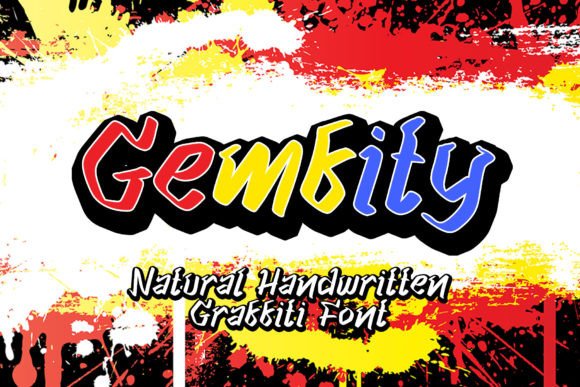
Welcome to the world of Gemfity Font, the script font family that will bring a touch of playful graffiti art into your creative conceptions. With its energetic strokes and vibrant personality, Gemfity is the perfect font for designers and artists seeking to create projects that pop.
At the core of Gemfity lies a spirit of youthful energy and artistic expression. Each letter dances across the page, as if drawn by a skilled hand with a spray can. The result is a font that exudes personality and captures the eye, making it ideal for projects that demand attention.
Whether you're designing logos, crafting wedding invitations, creating eye-catching posters, or simply adding a personal touch to your social media graphics, Gemfity Font is the perfect companion. Its versatility knows no bounds, allowing you to infuse your designs with a unique urban edge that will leave a lasting impression.
With Gemfity Font, you can:
* Create eye-catching logos that stand out from the crowd.
* Design wedding invitations that capture the joy and excitement of your special day.
* Craft posters and flyers that demand attention and draw people in.
* Add a personal touch to your social media graphics and make your posts pop.
* Unleash your creativity and bring your artistic visions to life.